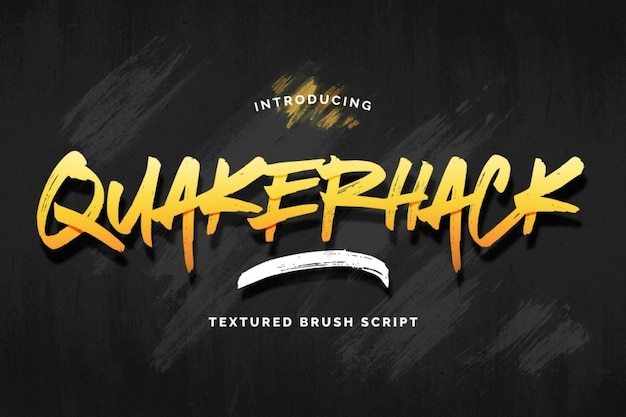
Quakerhack Font
AlmarkhaType
Strong and cool. Quakerhack font was made to give an intricate paintbrush-style detailing to your creations. With an authentic handbrush feel, this font is perfect for taking your projects to the next level. Download it now and start designing!